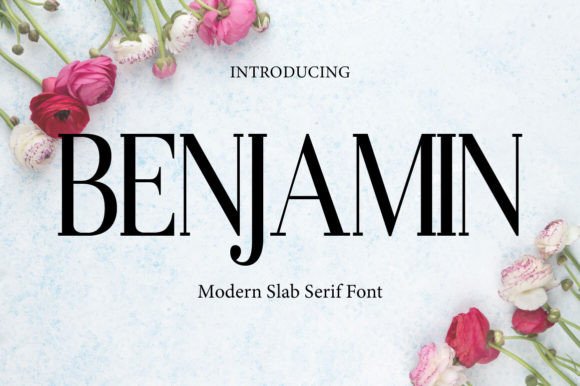
The Elegant Benjamin Font: A Designer’s Delight
I’ll never forget the time I was working on a wedding invitation project, and my client asked me to create a custom logo that exuded elegance and sophistication. I spent hours scouring the internet for the perfect font, but nothing seemed quite right. That was until I stumbled upon the Benjamin Font, an elegant and beautiful slab serif typeface that instantly captured the essence of the project. In this article, I’ll share my experience with the Benjamin Font, its features, and how to make the most of it in various design platforms.
The Benjamin Font has quickly become one of my go-to typefaces for a wide range of projects. Here’s what I love about it:
- ✨ Elegant and sophisticated design that’s perfect for high-end branding and luxury projects
- ✅ Highly legible, even at small font sizes, making it ideal for body text and captions
- 💡 Versatile and adaptable, suitable for various design applications, from logos and typography quotes to magazine covers and website headers
- 🎨 Beautiful slab serif design that adds a touch of classic sophistication to any project
While the Benjamin Font is an excellent choice, it’s not without its quirks:
- 🤔 Limited availability of certain OpenType features, which may limit its use in specific design applications
- ⚠️ Some users may find the font too ornate or over-the-top for certain projects, such as minimalist designs or body text
The Benjamin Font was designed with inspiration from classic typography and elegant serif fonts. Its creator aimed to craft a font that would be both beautiful and functional, suitable for a wide range of design applications. While the font’s exact design process is not publicly known, it’s clear that the designer was influenced by traditional typography and a passion for creating elegant, sophisticated typefaces.
| What is the Benjamin Font best suited for? | The Benjamin Font is ideal for a wide variety of projects, such as logo design, wedding invitations, typography quotes, magazine covers, website headers, clothing, branding, packaging design, and more. |
| Is the Benjamin Font suitable for body text? | While the Benjamin Font is highly legible, it’s best suited for headings, titles, and short-form text. For body text, you may want to consider a more traditional serif font. |
| Is the Benjamin Font available in different font styles? | Yes, the Benjamin Font comes in various font styles, including regular, bold, and italic. You can experiment with these styles to add more creativity to your designs. |